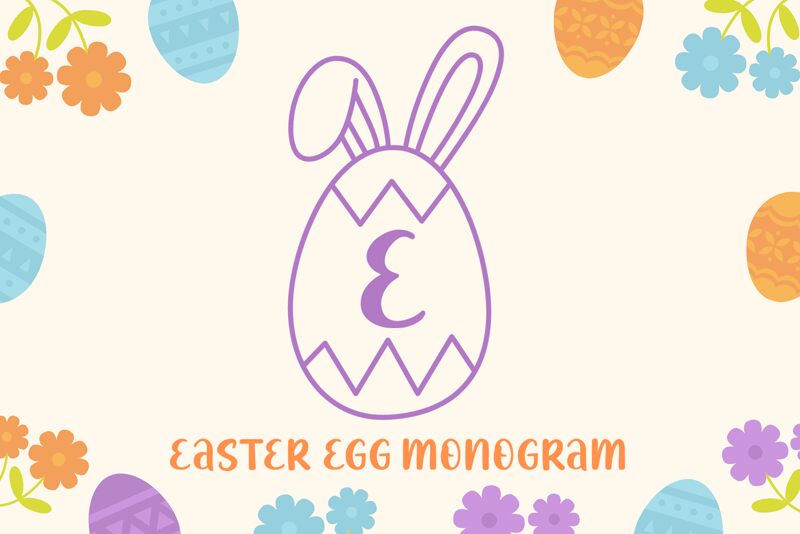
Easter Egg Monogram font by AEN Creative Studio is the perfect free font for your Easter and holiday themes. This decorative font is friendly, casual, and approachable; yet retains some contemporary, warm, and cheerful characteristics. An elegant monogram font, all of its letters contain an egg shape designed to highlight your initials.